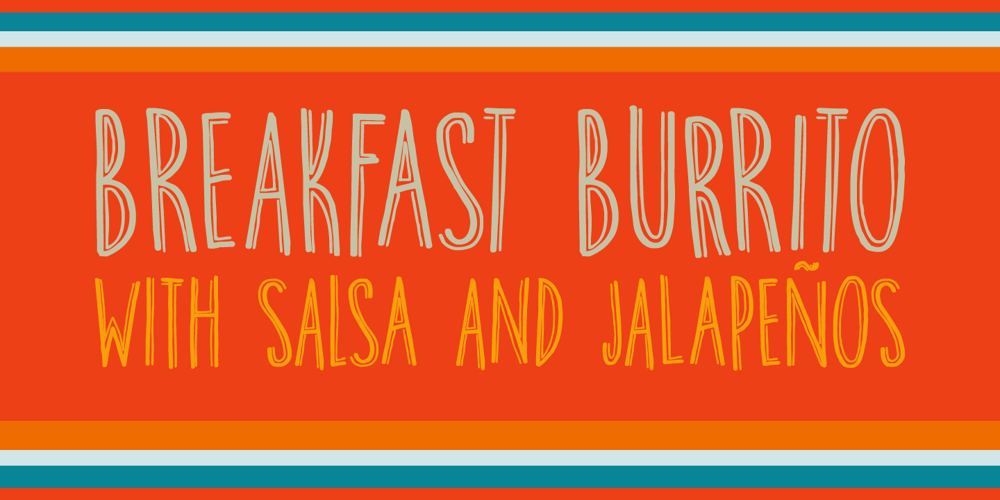
Breakfast Burrito Font Family was designed by David Kerkhoff and published by Hanoded. Breakfast Burrito contains 1 styles and family package options. Recently I have been watching some re-runs of Dexter. In season 1, Debra has a rough morning and complains she cannot make it through the day without eating a breakfast burrito. The name stuck, a font was born and the result is Breakfast Burrito font. It is a tall, all caps typeface with a little twist.